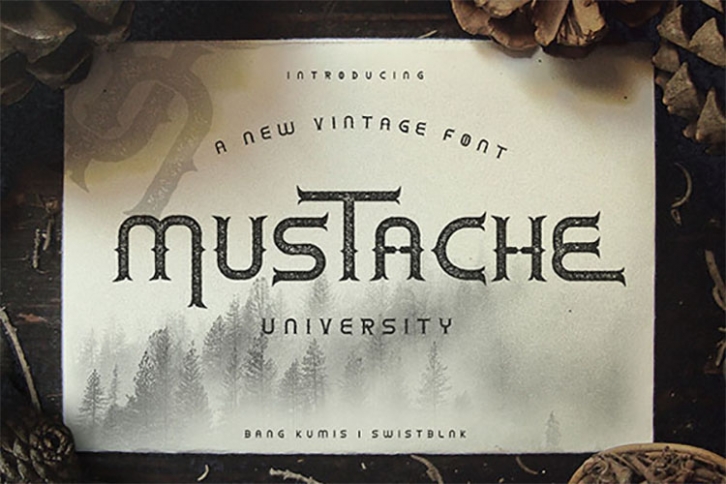
Mustache University is a trendy and unique font with an authentic style. It was designed by Bang Kumis Typefoundry and it's a great choice for creative people who need such a font. It was released on July 23, 2019 and the file size is 2.3 MB. Mustache University will add an organic vibe to any design idea!